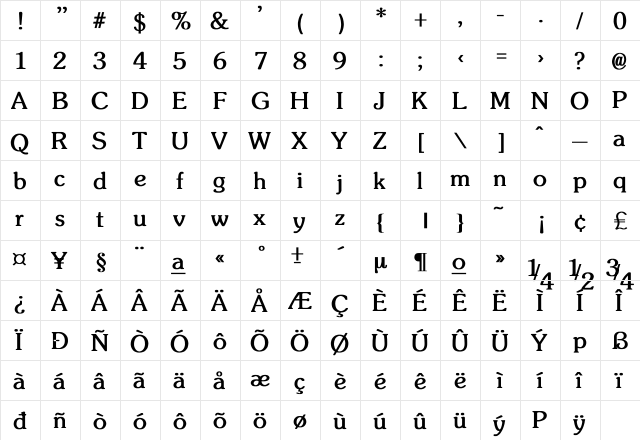
Zipf Light Bold Font Preview
Zipf Light Bold
Zipf Light Bold Font Details
Design Context for Zipf Light Typeface
Zipf Light takes a measured approach to typography — its balanced proportions and neutral character make it a reliable workhorse for both digital and print work. Its bold stroke weight gives it real presence on the page.